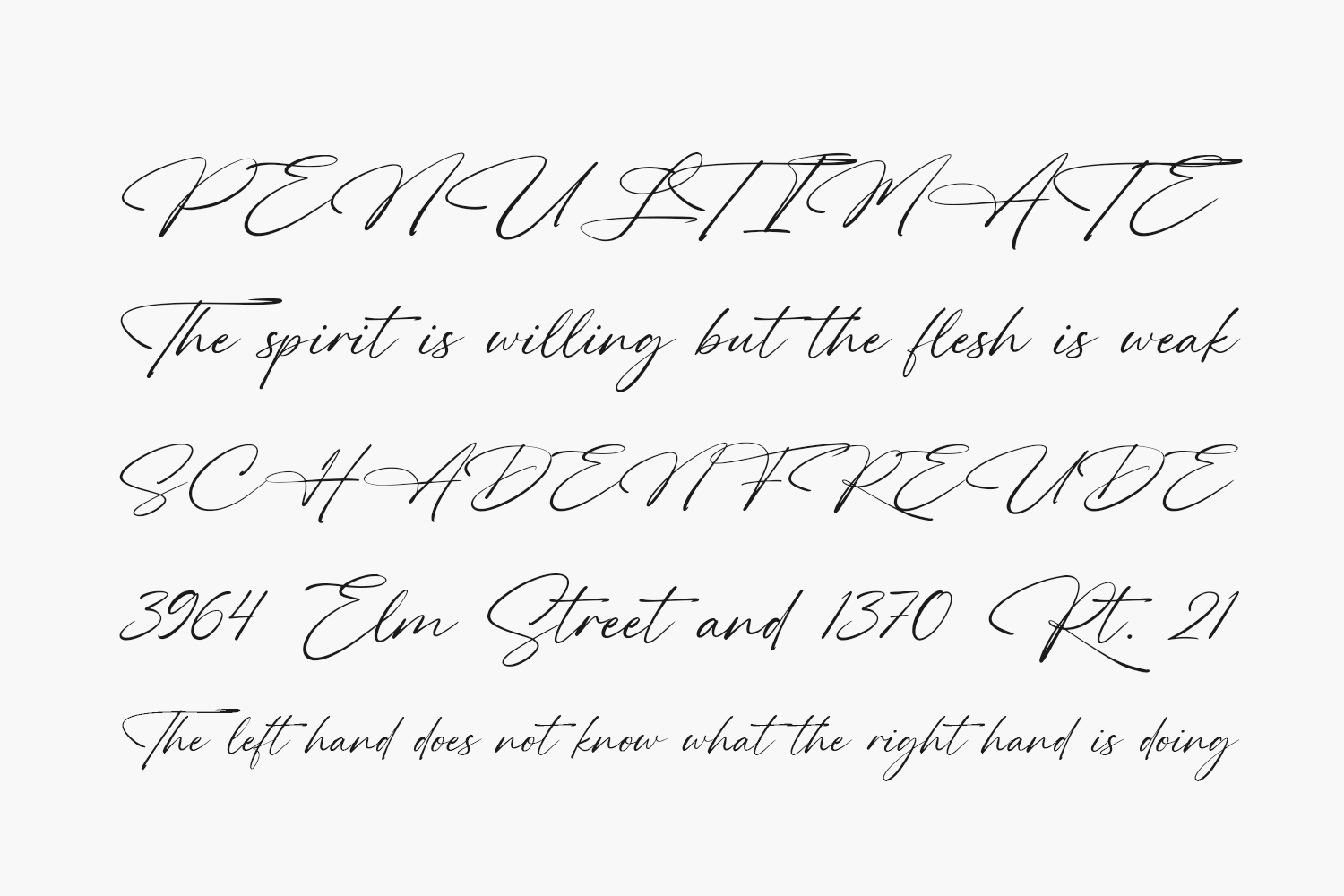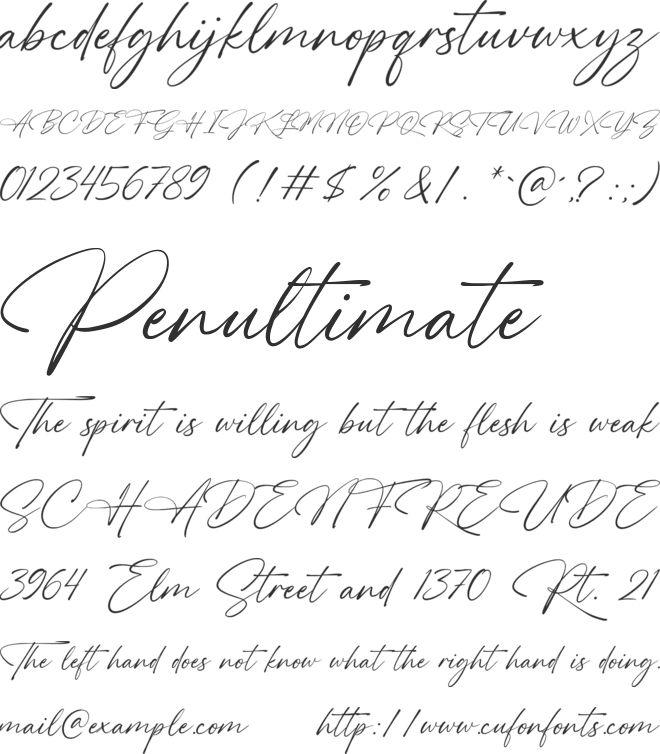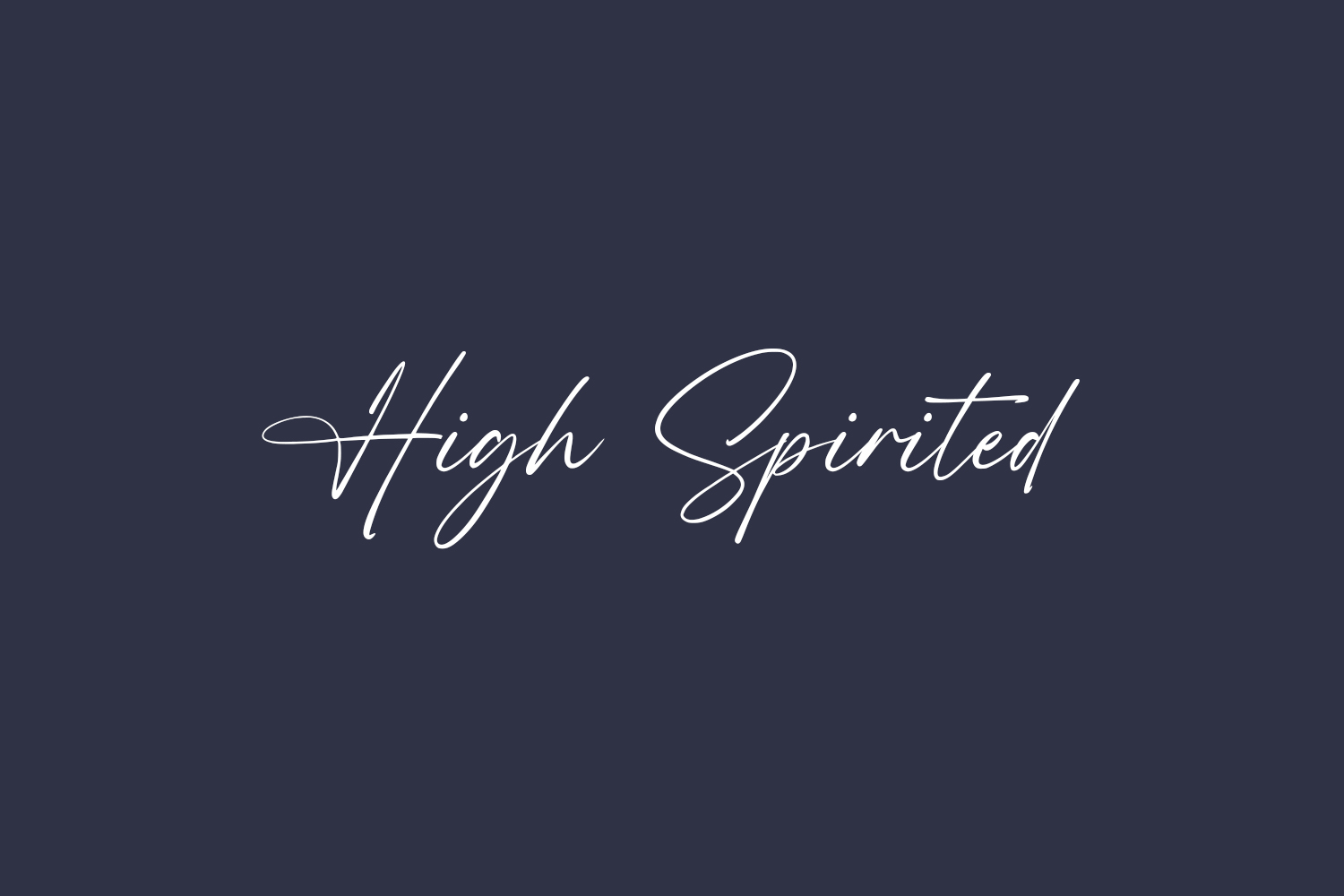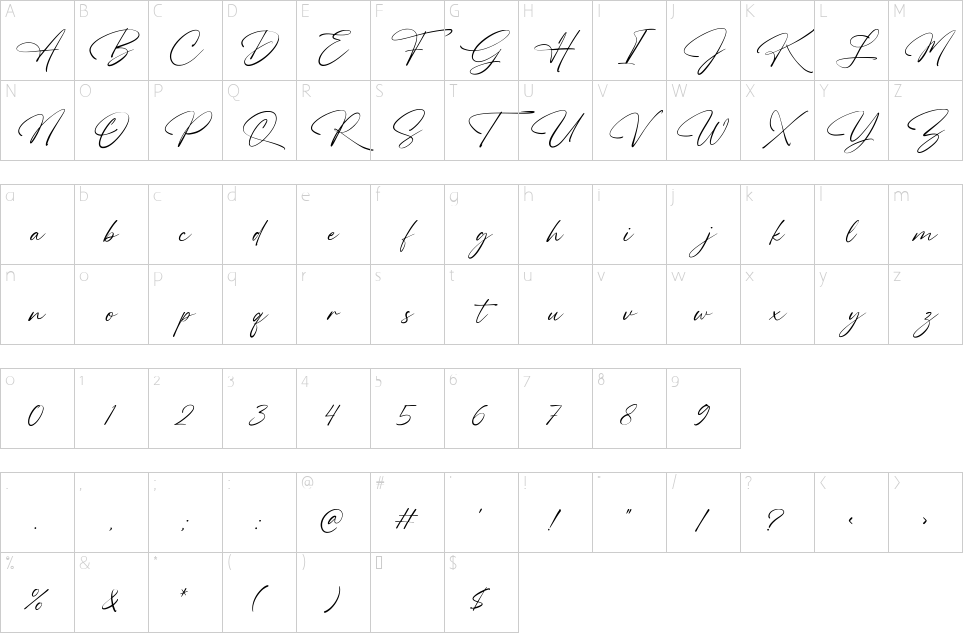
High Spirited Font
High Spirited Font - Web high spirited font, very suitable as to make adorable invitation for wedding, birthday, special day. High spirited à € by octotype | thomas boucherie. Contact octotypeone@gmail.com for commercial use. High spirited à € by octotype | thomas boucherie.
Contact octotypeone@gmail.com for commercial use. Web high spirited font, very suitable as to make adorable invitation for wedding, birthday, special day. High spirited à € by octotype | thomas boucherie. High spirited à € by octotype | thomas boucherie.
High Spirited Fonts Shmonts
Contact octotypeone@gmail.com for commercial use. Web high spirited font, very suitable as to make adorable invitation for wedding, birthday, special day. High spirited à € by octotype | thomas boucherie. High spirited à € by octotype | thomas boucherie.
High spirited à € by octotype | thomas boucherie. Contact octotypeone@gmail.com for commercial use. High spirited à € by octotype | thomas boucherie. Web high spirited font, very suitable as to make adorable invitation for wedding, birthday, special day.
Contact octotypeone@gmail.com for commercial use. Web high spirited font, very suitable as to make adorable invitation for wedding, birthday, special day. High spirited à € by octotype | thomas boucherie. High spirited à € by octotype | thomas boucherie.
High spirited à € by octotype | thomas boucherie. Web high spirited font, very suitable as to make adorable invitation for wedding, birthday, special day. Contact octotypeone@gmail.com for commercial use. High spirited à € by octotype | thomas boucherie.
highspiritedfreefont01 Fonts Shmonts
High spirited à € by octotype | thomas boucherie. Web high spirited font, very suitable as to make adorable invitation for wedding, birthday, special day. High spirited à € by octotype | thomas boucherie. Contact octotypeone@gmail.com for commercial use.
High spirited à € by octotype | thomas boucherie. Contact octotypeone@gmail.com for commercial use. Web high spirited font, very suitable as to make adorable invitation for wedding, birthday, special day. High spirited à € by octotype | thomas boucherie.
Fuente High Spirited diseñada por Octotype Thomas Boucherie
High spirited à € by octotype | thomas boucherie. Contact octotypeone@gmail.com for commercial use. Web high spirited font, very suitable as to make adorable invitation for wedding, birthday, special day.
High spirited à € by octotype | thomas boucherie. Contact octotypeone@gmail.com for commercial use. High spirited à € by octotype | thomas boucherie. Web high spirited font, very suitable as to make adorable invitation for wedding, birthday, special day.
Web high spirited font, very suitable as to make adorable invitation for wedding, birthday, special day. High spirited à € by octotype | thomas boucherie. Contact octotypeone@gmail.com for commercial use.
High Spirited À € By Octotype | Thomas Boucherie.
High spirited à € by octotype | thomas boucherie. Contact octotypeone@gmail.com for commercial use. Web high spirited font, very suitable as to make adorable invitation for wedding, birthday, special day.